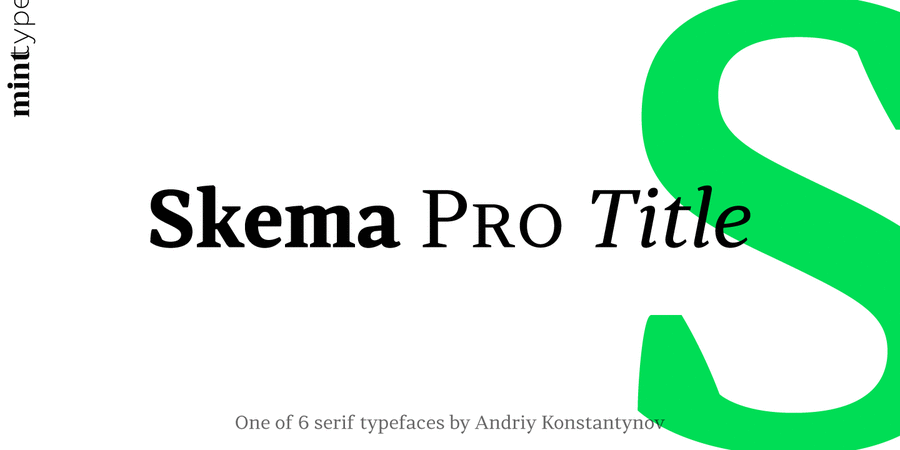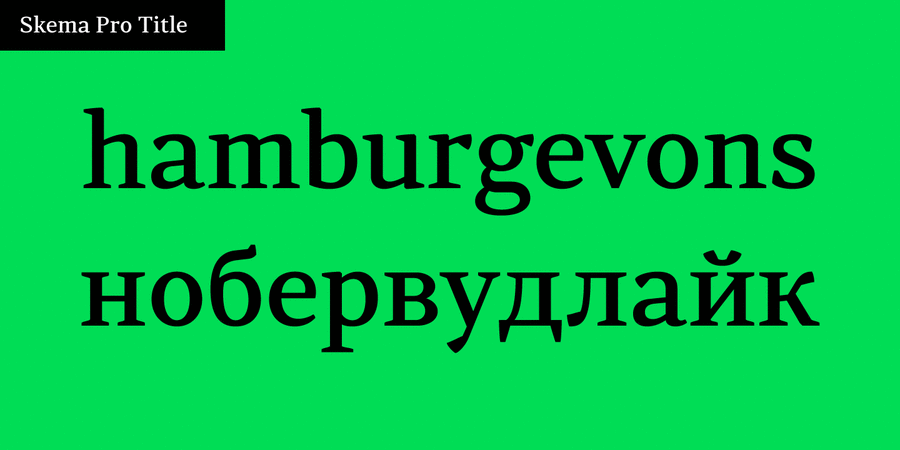
Skema Pro Title has medium contrast, large x-height, and vertical axis. Designed to work in larger text sizes, it offers contemporary detailing for pull-quotes and subheadings.
Skema Pro is a versatile system of 6 serif typefaces – each bearing a distinct character and purpose. Together they form a huge superfamily of 84 fonts to fit any imaginable task.
Font family Skema Pro was designed and released by Andriy Konstantynov in Mint Type foundry in 2017.
Associations for font family Skema Pro TitleTypeface personality and character:
thin, easy, delicate, calm, flat, harmonious, balanced, cosmopolitan, unobtrusive, technically, modern, accurate, logical, low key, static, cultural, educated, serious, clever, solid, crisp, cutting, high-quality, polite, universal, clear, simple, neutral, average, normal, business, moderate, practical, optimal, available, strict, urban, convincing, responsible, reputable, motivating, authoritative, formidable, severe, robust
Typeface exhibits stylistic traits: